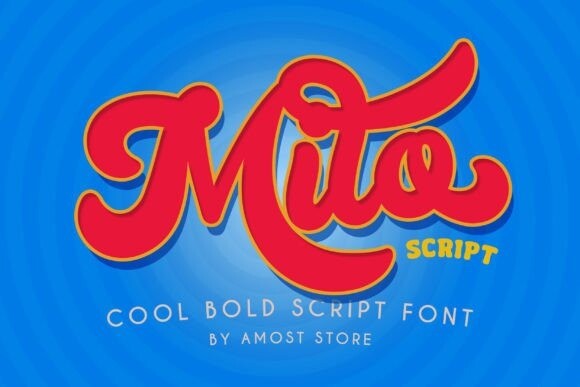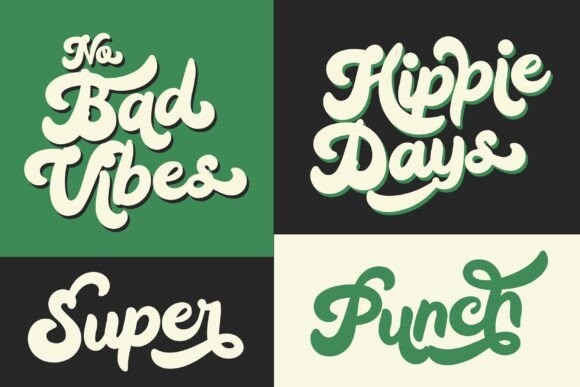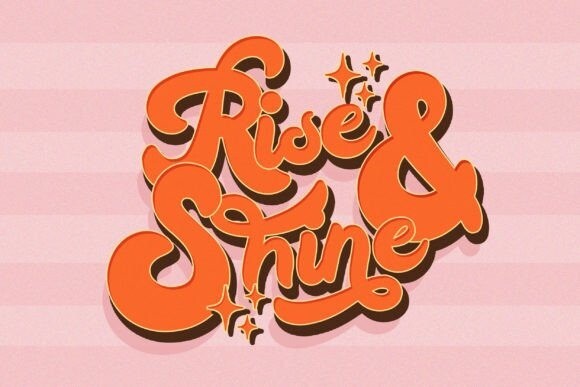
Milo Font
Milo Font is a Retro Vintage style font.
It’s perfect for your display or product design: shirts, boho designs, stickers, logos, branding, greeting cards, Cricut projects, posters, magazines, social media, planner prints, and websites.